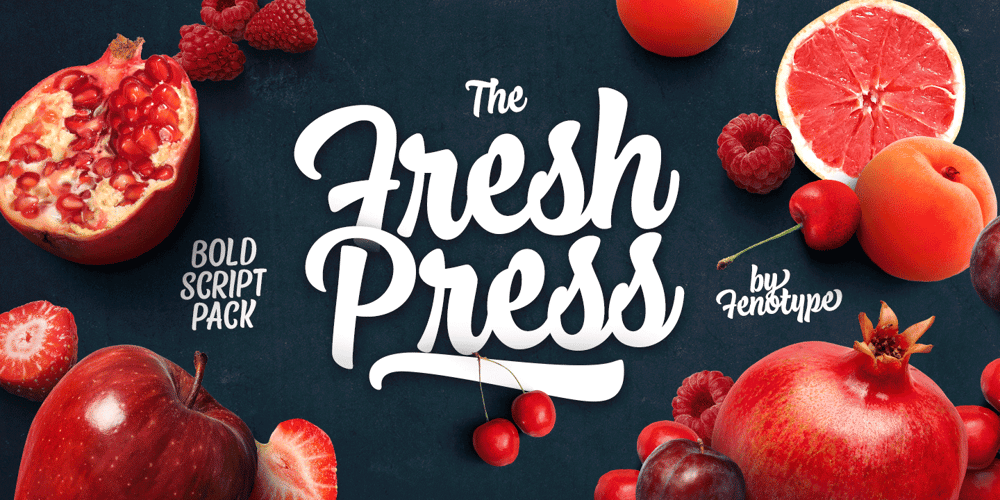
Fresh Press Font Family was designed by Emil Karl Bertell and published by Fenotype. Fresh Press contains 8 styles and family package options. Fresh Press is a pack of handmade goodness – a visual delight in the form of a beautiful and strong script family. Fress Press consists of Regular, Bold, Caps and Ornaments that all play smoothly together. If Fresh Press feels too clean, there’s a Printed version of the whole family with a rough outline and texture. Fresh Press is equipped with Standard Ligatures and Contextual Alternates that maintain a smooth text flow. If that isn’t enough, try Swash, Stylistic or Titling Alternates in any OpenType-savvy program, or manually look for alternates from character map. Fresh Press is a clear and strong choice for any display use from branding to packaging and online to print.